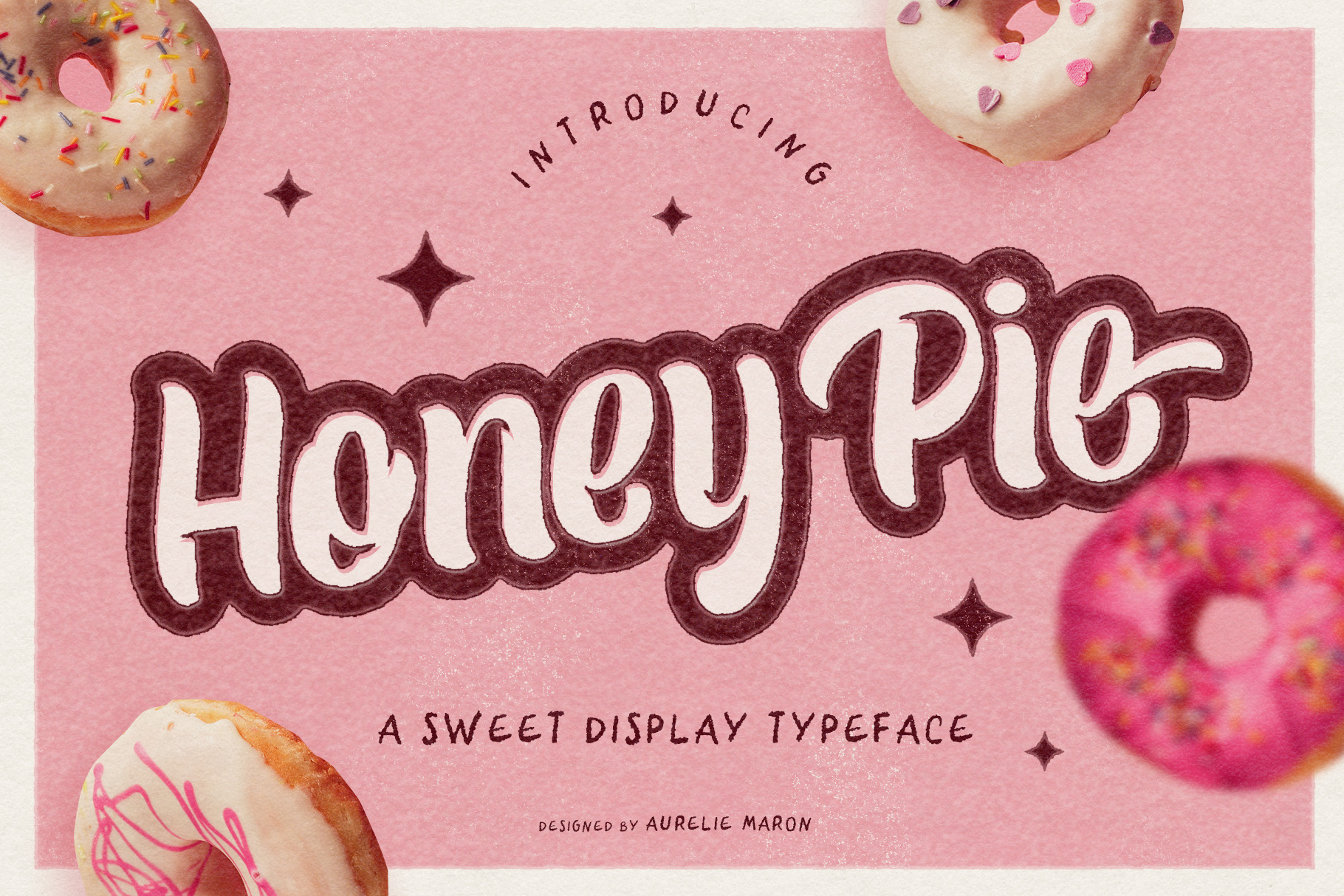
Honey Pie – Sweet Typeface
Introducing Honey Pie, a bold semi-script super sweet typeface inspired by Graffiti Lettering.
Honey Pie is great for any kind of display purposes from branding, emblem, logos, t-shirt, packaging and many more! It will also be perfect for all your Cricut projects.
It comes with all uppercase, lowercase, numeral and most special characters from the Roman alphabet.
This font will look great on darker background or with a black outline (best achieved in Illustrator).